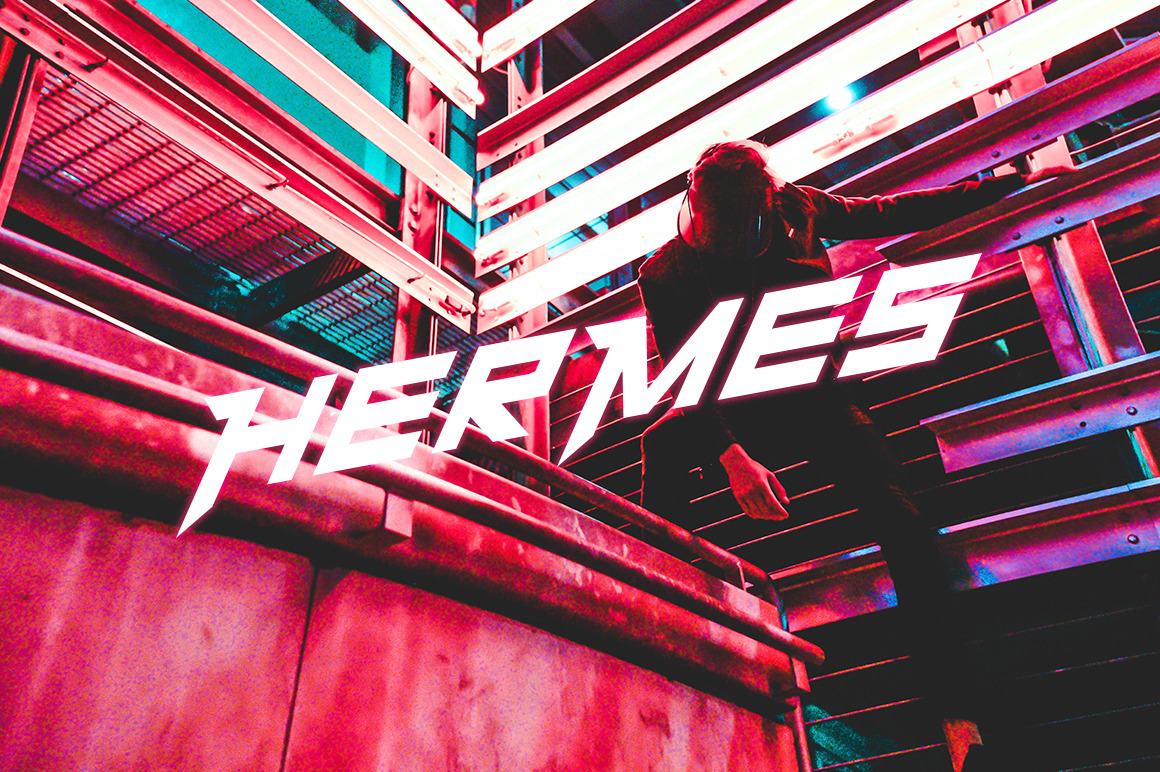
Hermes Font
THE RETRO FUTURISTIC FONT IS HERE
Hermes is one of a kind, it's POWERFUL, FUTURISTIC, and SHARP. It brings you back to that 80s ambiance and also to that futuristic world that you have dreamt of.
Hermes is really fit for retro, futuristic, automotive, and gaming themed designs. Just look how it performs on the preview that I have provided, you will see its capabilities. But it will also work well with other themes.
Tips from the future Combine the uppercase and lowercase to create a great customized typography, but if you don't combine it it will still work as awesome as it is combined. So the power is in your hand!